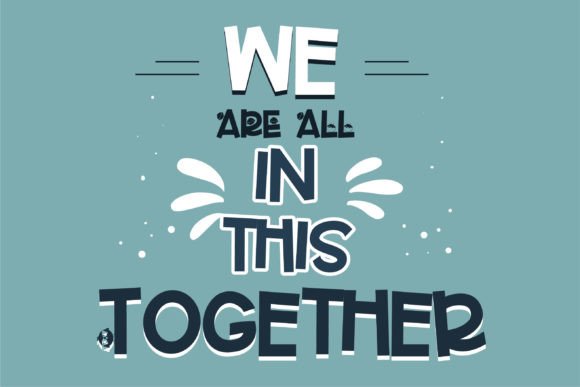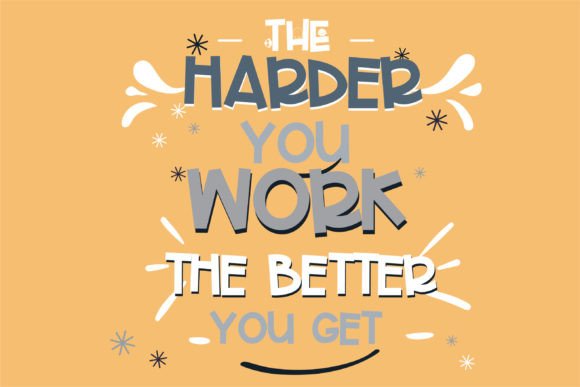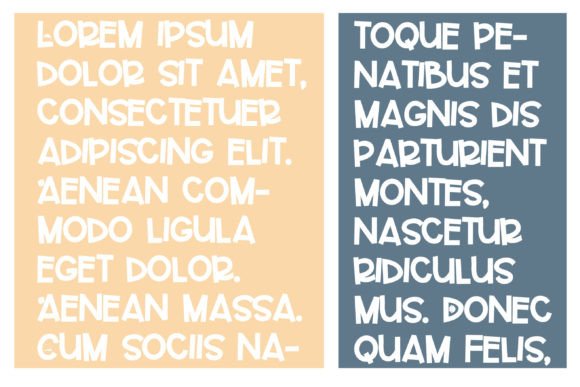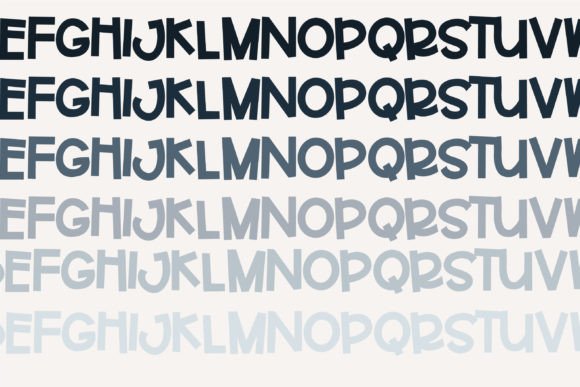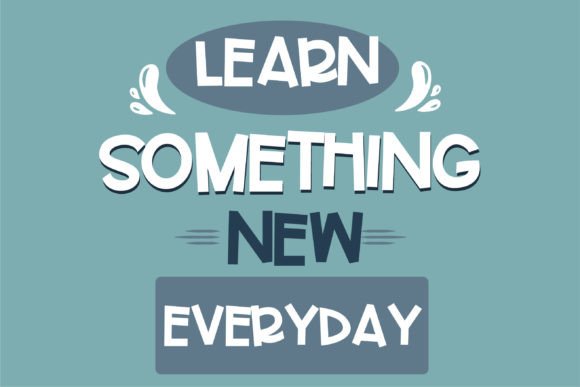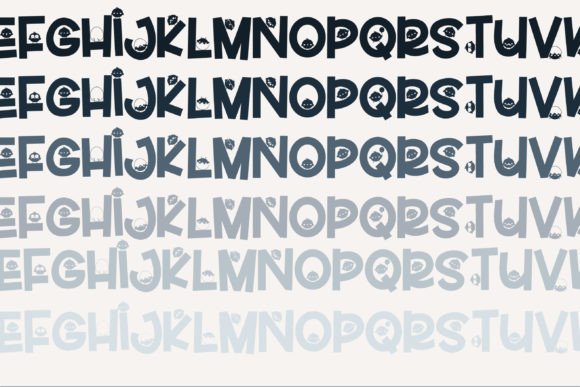
Introduction to Chick Peas Font Font
Fonts play a crucial role in design, and the Chick Peas Font font is a typeface that brings both character and versatility to any project. Whether you’re working on a branding project, a website, or a print design, the Chick Peas Font font offers a unique style that can elevate your work.
Chick Peas is a dynamic and distinctive option thatβs perfect for designs that need a youthful touch.
Its bold lines and unique letter shapes give it an energetic and modern feel, while its clean design makes it easy to read The letters work together seamlessly, creating a cohesive and eye-catching look.
Key Features of Chick Peas Font Font
Why Choose Chick Peas Font Font?
The Chick Peas Font font is more than just a typeface β it’s a design tool that helps you communicate your message with style and clarity. Its unique character set and versatile design make it suitable for a wide range of applications, from elegant invitations to bold headlines.
With its carefully crafted letterforms and balanced proportions, the Chick Peas Font font ensures readability and visual appeal across all mediums.
What makes Chick Peas Font font special?
The Chick Peas Font font stands out with its unique design, exceptional readability, and versatility across various design applications.